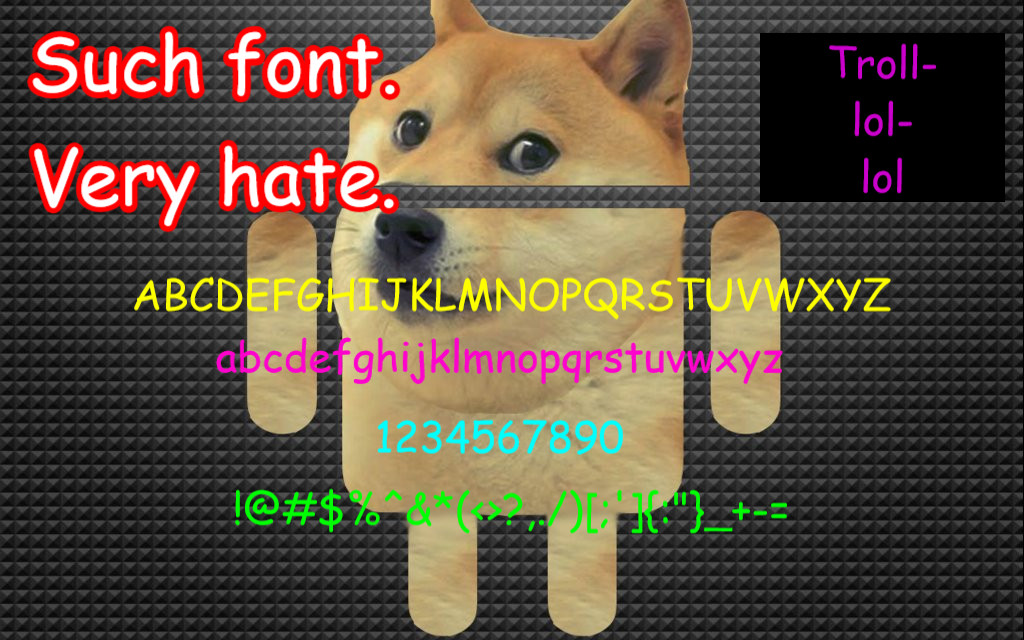
I'm basically trolling you guys here, I hate the Comic Sans font just as much as any of you guys do.ΒNot to be used for formal documents, formal emails or serious notices. If you do use it for any of those things, you will be harassed and mocked to death and I know you don't want that to happened.
You know what this fucking font is, I don't need to say its name.
Original creator:Β Vincent Connare
here's some fun trivia: this font was used for Baldi's Basic's, which was popular as of last year, and there were mods, gameplay's, and even the Baldi's Basic's 1 Year Birthday Bash (with a new update) to make this game more exciting and fun for new and existing fans of the Baldi universe, including Baldi's Basic's | Field Trip!
The Comic Sans font is memeable nowadays